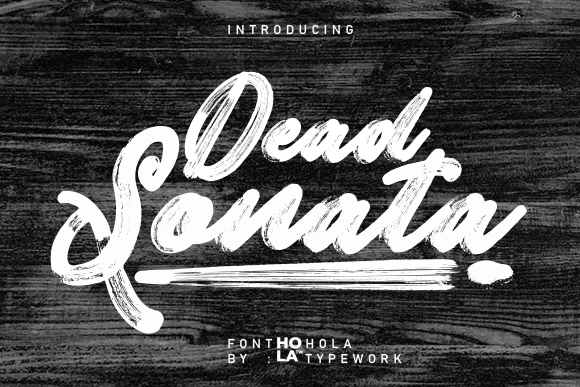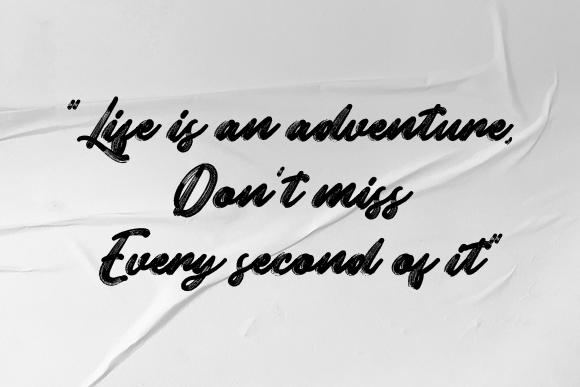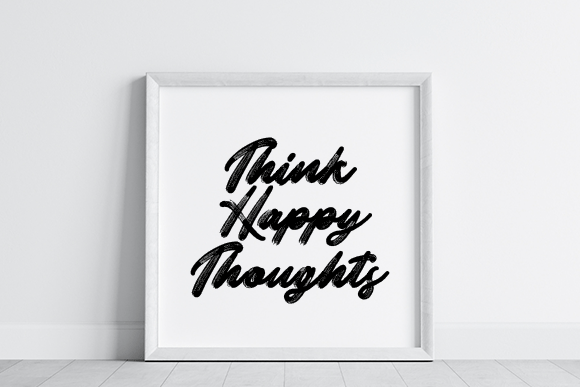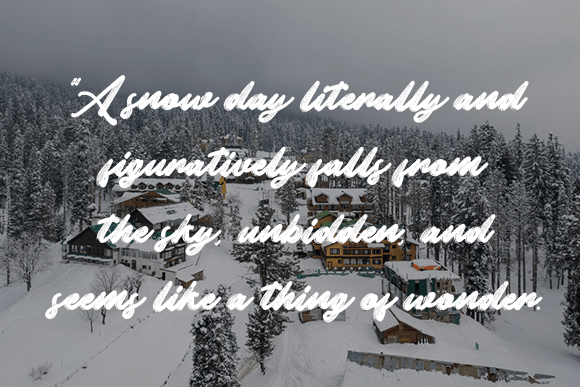
Dead Sonata Font: A Bold Brush Script for Social Media Design
About the Dead Sonata Font
The wait is over! The incredible Dead Sonata Font is now available for your design toolkit. Surrender to the captivating charm of Dead Sonata, a decisively graceful high brush script font specifically crafted for your unique artistic ventures. With its charisma, it brings an enchanting touch to powerful advertisements, influential social media posts, and unforgettable quotes and graphics. Dead Sonata’s exclusive glyphs ooze refined elegance, elevating the artistic brilliance of your work with every brushstroke.
Dead Sonata excels in headline treatments, short impactful phrases, and logo design where its elegant flourish can shine. It’s ideal for branding projects aiming for a sophisticated and slightly mysterious feel, particularly in the fashion, beauty, or luxury goods sectors. Avoid using it for body text or lengthy paragraphs; its decorative nature compromises readability in continuous text.
Pairing Dead Sonata with a clean sans-serif like Montserrat or a geometric sans-serif such as Futura creates a balanced contrast. For a warmer feel, consider pairing it with a classic serif font like Garamond or a more modern serif like Lora. These pairings allow Dead Sonata’s calligraphic charm to take center stage without overwhelming the design.
The font projects an air of refined elegance with a touch of mystery. Its personality is sophisticated and dramatic, making it unsuitable for projects requiring a friendly or informal tone.
Dead Sonata Font Usage Examples
Dead Sonata Font Example